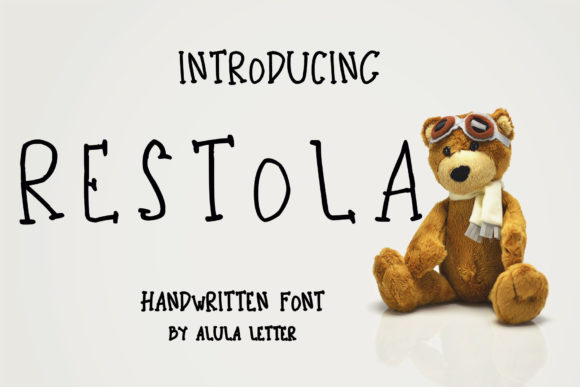
Welcome to the world of Restola Font, a whimsical and playful script font family that exudes a sense of genuine delight and lightheartedness. Step into a realm of captivating designs where creativity dances with joy, and every project blossoms into a visual masterpiece.
Restola Font is not just a collection of letters; it's an expression of individuality. Its fluid strokes and charming curves bring a touch of whimsy and cheer to any project, whether it's a whimsical invitation, an eye-catching social media post, or a heartfelt greeting card. With Restola, your designs will radiate with a unique personality that reflects your true essence.
Crafted with the utmost care and attention to detail, Restola Font is a true work of art. Its distinctive character adds a touch of magic to every word, transforming ordinary messages into heartwarming expressions that resonate with your audience. Whether you're a seasoned designer or just starting your creative journey, Restola Font is the perfect companion for adding a sprinkle of joy and personality to your projects.
Immerse yourself in the world of Restola Font and discover a treasure trove of creative possibilities. Let your imagination soar as you explore endless combinations of characters, colors, and backgrounds. With Restola, the possibilities are as limitless as your imagination. Experience the sheer delight of turning your design dreams into a reality with this enchanting font family.
So, embrace the playful spirit of Restola Font and embark on a creative adventure where every project is a celebration of your unique style. Let Restola be your guiding light, leading you towards designs that are both captivating and unforgettable. Unleash the magic of Restola today and let your creativity shine!